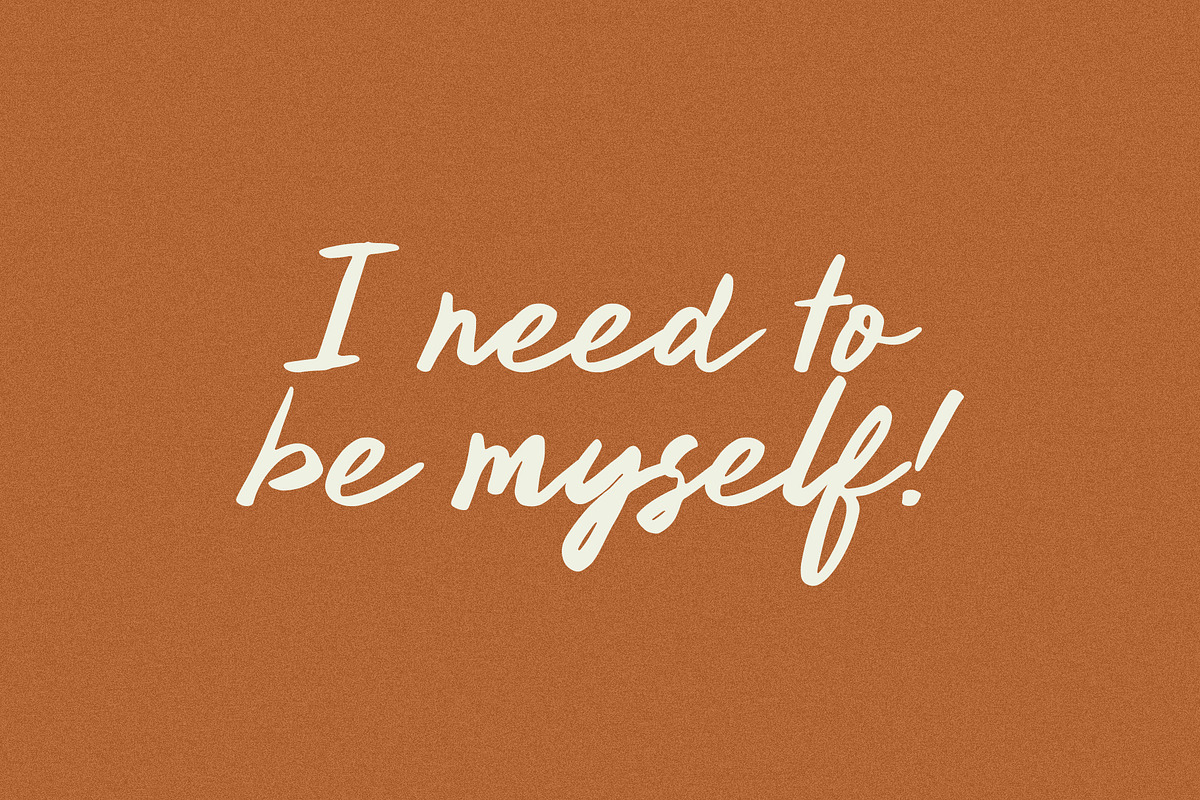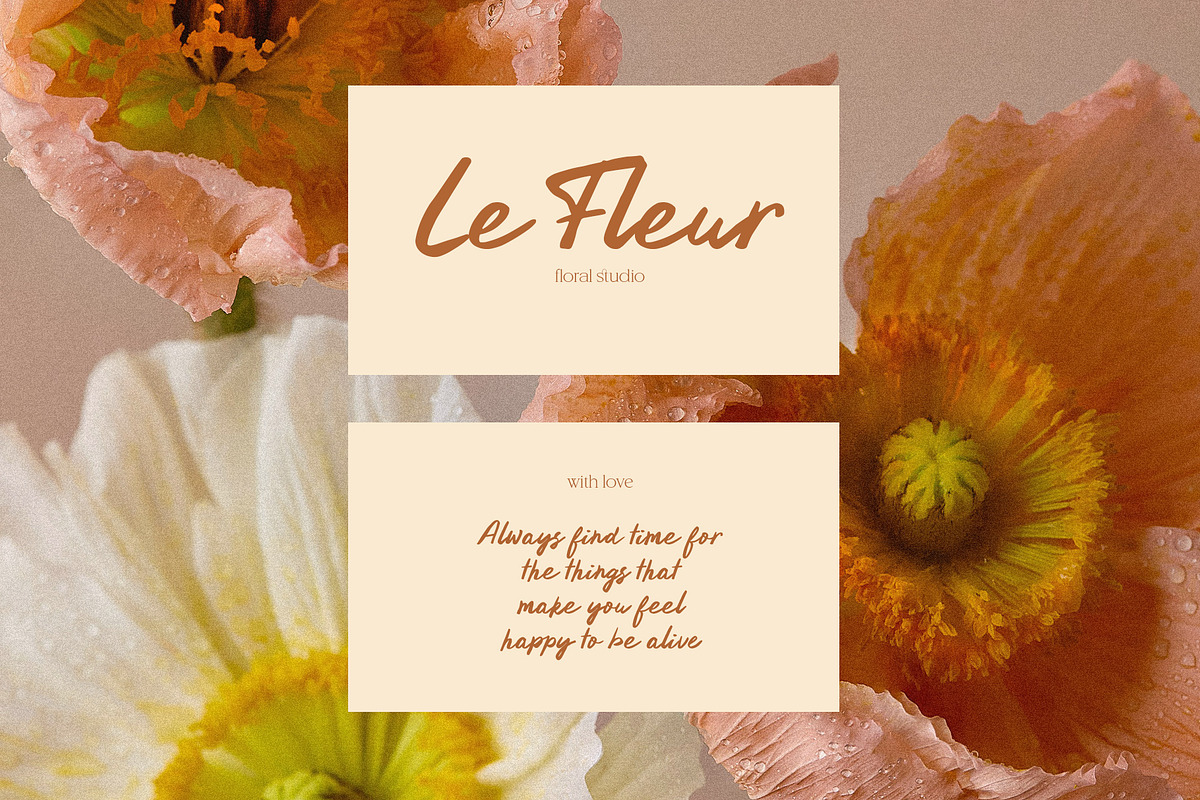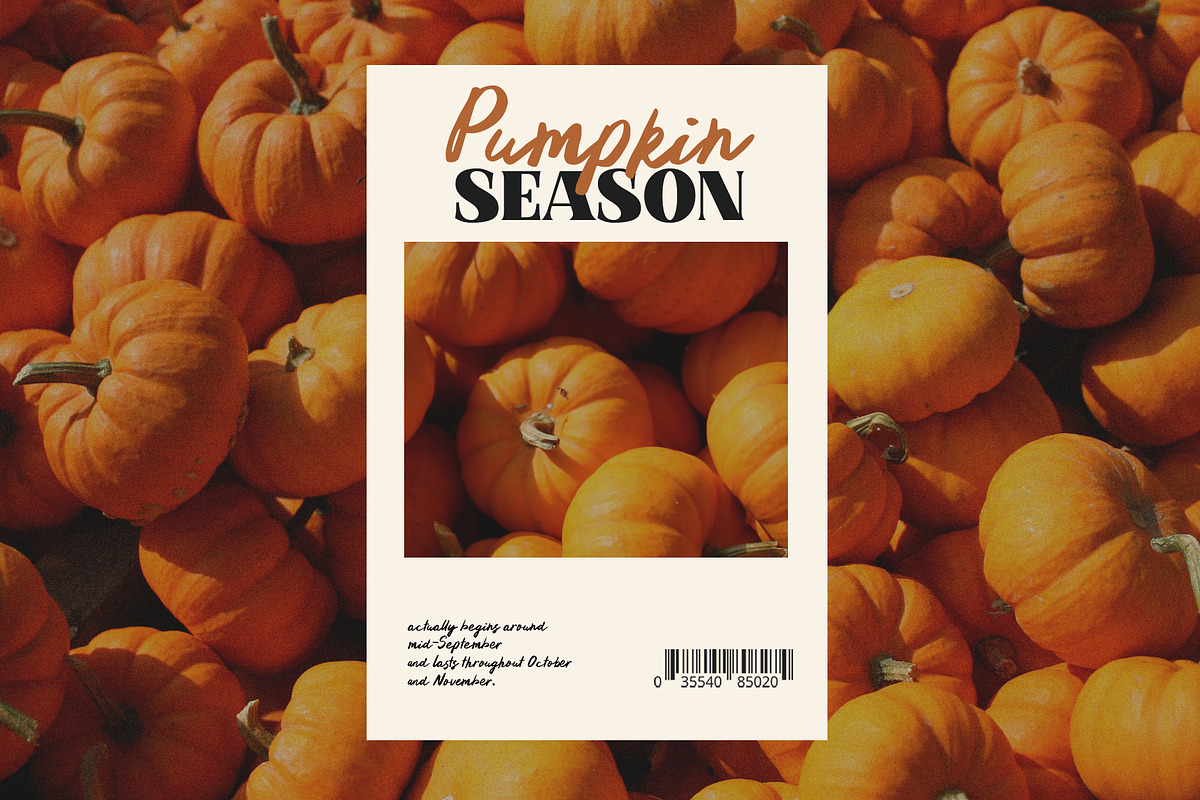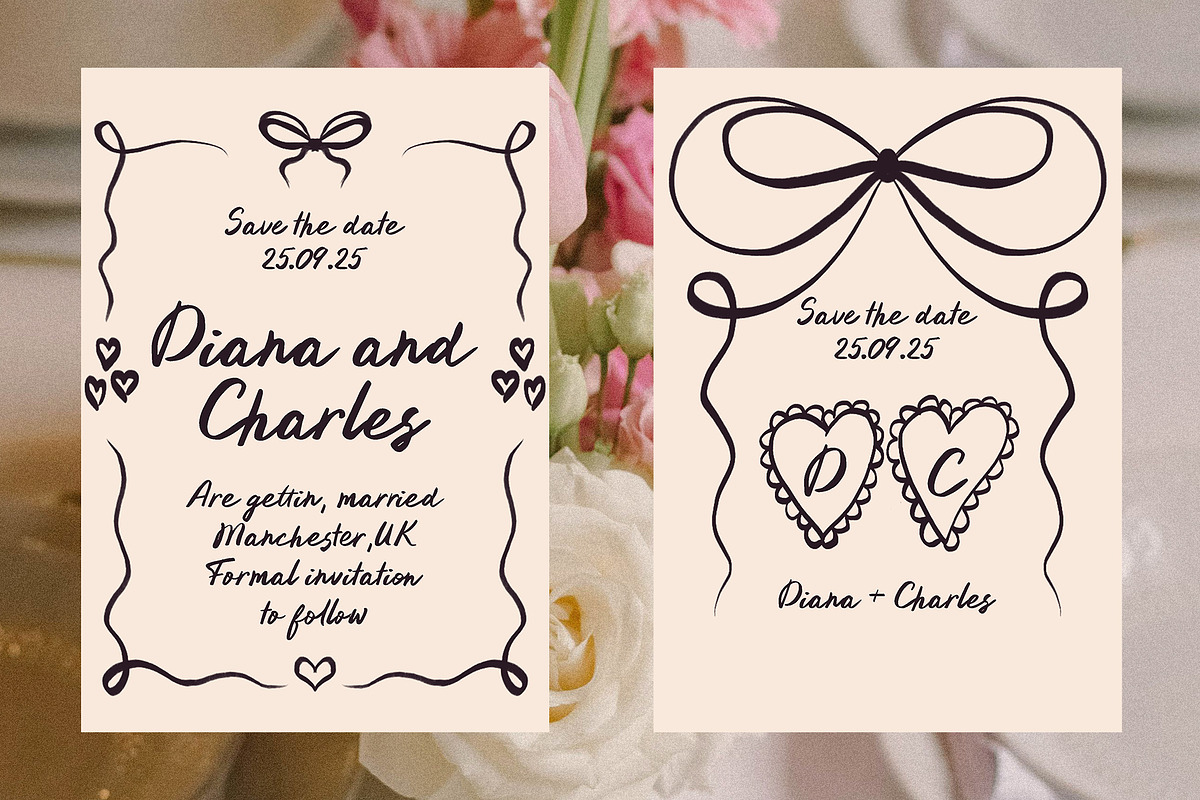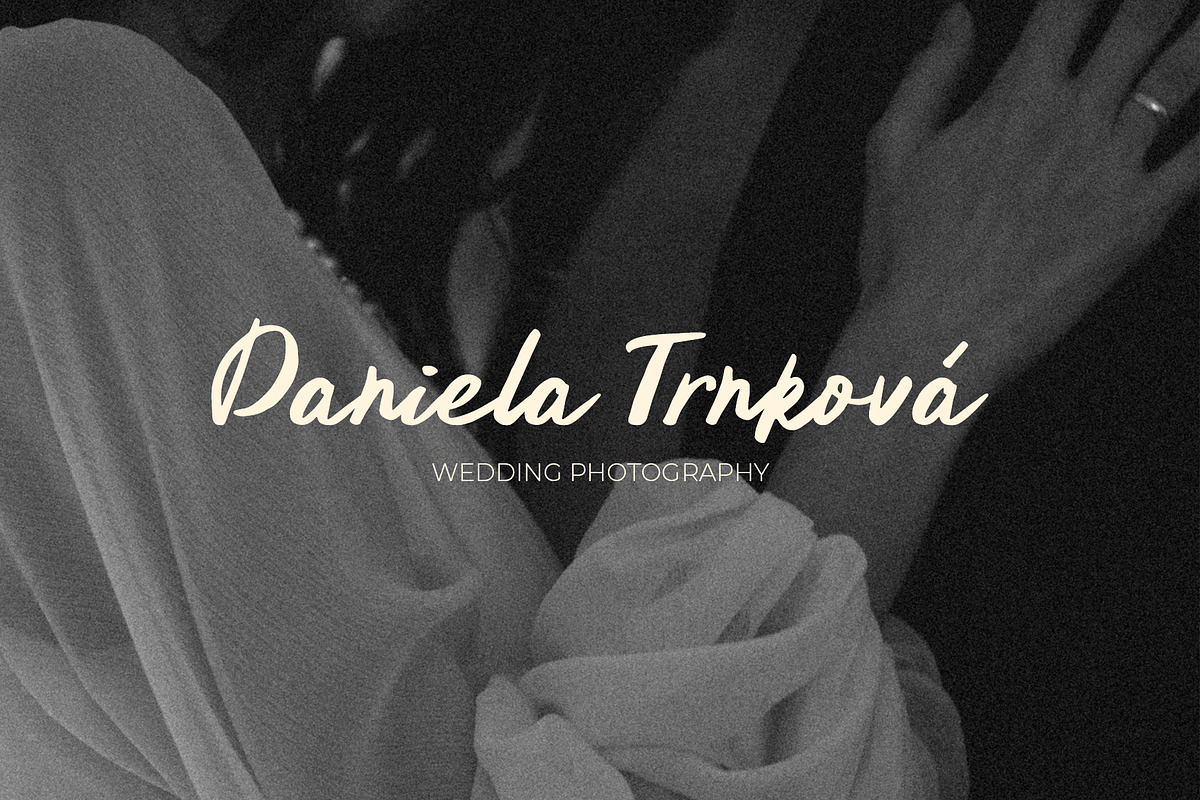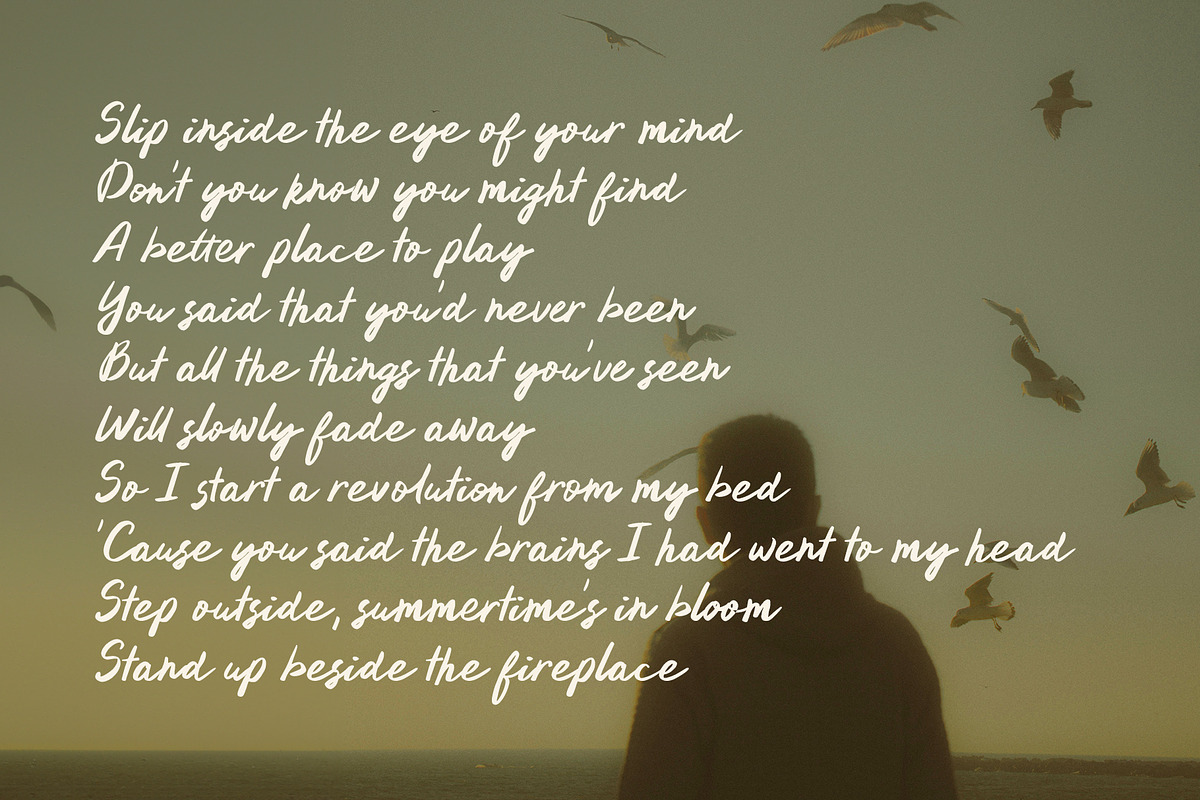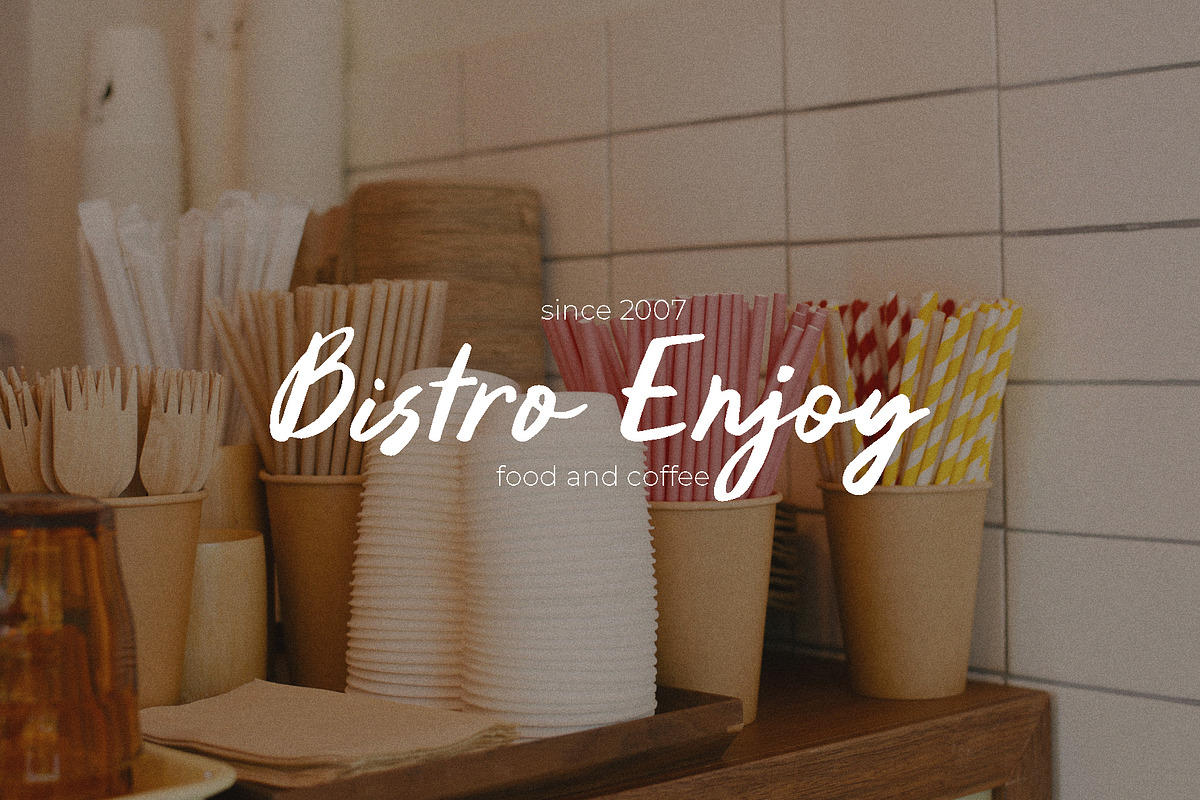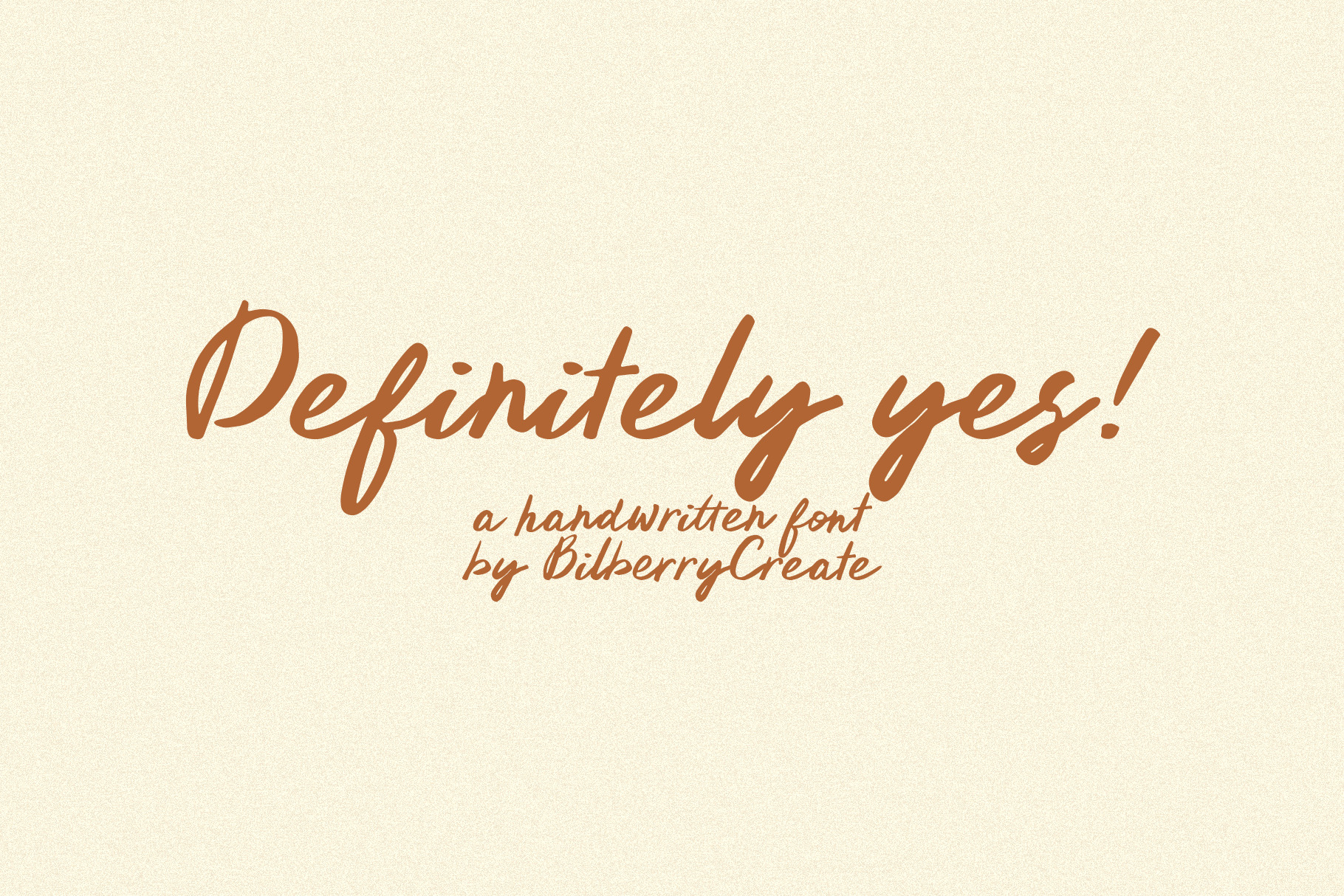
Definitely yes! handwritten font
Definitely yes - handwritten font!
This is a perfect handwritten font for any project. Be sure to click on the image to see all elements. This product was created to help you make your digital images even more beautiful and unique.
This pack can be used to create anything as you wish, logos invitation cards, wedding cards, birthday cards, home decor, packaging holiday gifts, party decorations, print on fabrics and so much more.